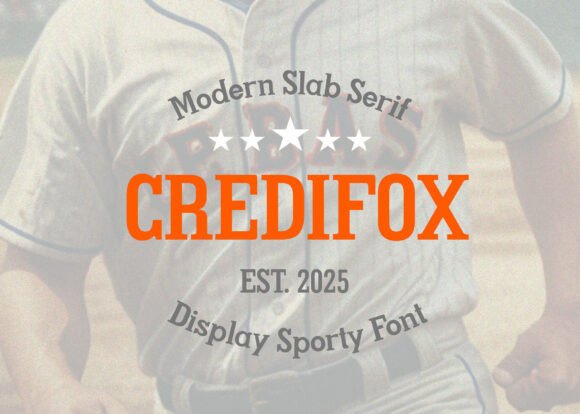
Credifox: The Ultimate Font for Sports Branding
In the world of design, a font can make or break a brand. When it comes to sports branding, the right typeface needs to be bold, recognizable, and versatile. Enter Credifox, a true flagship font that blends classic elegance with modern simplicity. Designed to stand out in a crowded market, Credifox is more than just a font—it's a powerful tool for creating a strong visual identity.
What Makes Credifox Unique?
Credifox is a hybrid typeface that combines the best elements of a slab serif and a sans serif. This unique blend gives it a distinctive look that’s both traditional and contemporary. The slab serif influence adds weight and structure, while the sans serif characteristics ensure clarity and readability—especially important in sports branding where legibility at a glance matters.
The clean lines and balanced proportions of Credifox make it incredibly easy to use across different mediums. Whether you're designing a logo, a poster, or a magazine cover, this font adapts seamlessly without losing its impact. Its versatility makes it a go-to choice for designers who want to create a cohesive and professional look.
Key Features of Credifox
- Modern yet Classic: Combines the strength of a slab serif with the simplicity of a sans serif.
- High Readability: Perfect for both large-scale displays and small text.
- Versatile Applications: Suitable for logos, packaging, apparel, and more.
- Strong Visual Identity: Helps brands stand out in competitive markets.
Where Can You Use Credifox?
Credifox is ideal for a wide range of applications, especially those that require a bold and confident visual presence. Here are some common use cases:
- Sports Logos: The font’s strong structure and modern feel make it perfect for team logos and athletic brands.
- Branding Materials: From business cards to banners, Credifox ensures consistency and professionalism.
- Posters and Advertising: Its boldness makes it an excellent choice for eye-catching promotional materials.
- Apparel and Merchandise: Whether on t-shirts, hats, or bags, Credifox adds a touch of style and recognition.
- Magazine Titles and Headlines: The font’s clarity and impact help draw attention to key content.
For businesses and creators looking to build a strong visual identity, Credifox offers a reliable and effective solution.
Who Benefits from Using Credifox?
Whether you’re a professional designer, a sports team owner, or a small business looking to establish a brand, Credifox can be a valuable asset. Its adaptability means it works well for both large corporations and independent creators.
For sports teams and organizations, Credifox helps create a consistent and memorable brand image. For designers, it offers a fresh and flexible option that can be used across multiple projects. And for businesses, it provides a way to communicate professionalism and energy through typography.
It’s not just about aesthetics—it’s about making a statement.
Real-World Applications of Credifox
Let’s take a look at how Credifox has been used in real-world scenarios:
- Sports Team Branding: A local soccer club used Credifox for their logo and merchandise, resulting in a more cohesive and professional look that resonated with fans.
- Event Promotions: A fitness expo utilized Credifox in their posters and digital ads, drawing attention and increasing attendance.
- Online Storefronts: An e-commerce brand adopted Credifox for their website headers and product titles, enhancing the overall user experience and brand recognition.
These examples show how Credifox can be applied in practical and impactful ways.
Strengths and Considerations
Credifox has several strengths that make it a top choice for many designers and brands. Its combination of slab and sans serif elements gives it a unique edge, while its clean design ensures it remains readable in various contexts. However, like any font, it may not be the best fit for every project.
One consideration is that Credifox works best in bold and impactful designs. It may not be as suitable for small text or intricate layouts where subtlety is needed. Additionally, while it’s highly versatile, it’s important to evaluate whether its style aligns with the overall aesthetic of your project.
It’s always a good idea to test the font in different formats before finalizing your design.
Evaluating Suitability for Your Project
When deciding whether Credifox is right for your project, consider the following factors:
- Brand Identity: Does the font match the tone and message of your brand?
- Readability: Is it clear and easy to read in the intended context?
- Versatility: Can it be used across different media and sizes?
- Uniqueness: Does it offer a fresh and distinctive look compared to other fonts?
If you’re looking for a font that balances strength and simplicity, Credifox is worth exploring. It’s a great choice for anyone who wants to create a strong and memorable visual presence.
By understanding its features, applications, and suitability, you can make an informed decision about whether Credifox is the right choice for your next project. With the right approach, this font can become a cornerstone of your design strategy.